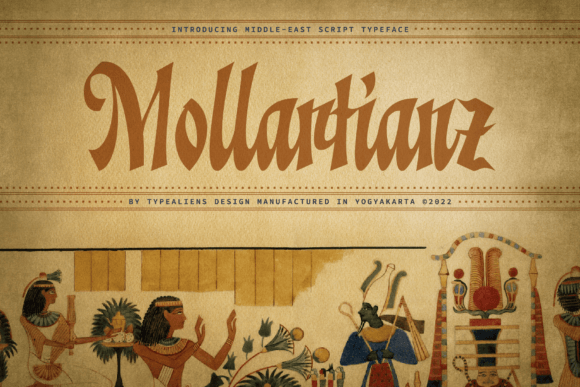
Mollartianz Font
Unleash the Timeless Charm of Mollartianz: A Vintage Font that Embraces the Essence of Nostalgia
In a world saturated with digital monotony, Mollartianz emerges as a beacon of nostalgia, a font that evokes the allure of bygone eras with its captivating vintage charm. Designed to capture the essence of classic aesthetics, this display font breathes new life into your creative projects, transforming them into extraordinary expressions of timeless beauty.
With its elegant curves and intricate details, Mollartianz transports you to a realm of vintage splendor, evoking memories of sepia-tinted photographs and the timeless appeal of classic typefaces. Its versatility extends beyond mere aesthetics, adapting seamlessly to a wide range of design projects, from heartfelt branding endeavors to captivating marketing campaigns.
Imagine your designs adorned with the refined elegance of Mollartianz, captivating audiences with its authentic vintage flair. Craft logos that exude an air of heritage, evoking a sense of nostalgia and trust. Create packaging designs that whisper tales of forgotten times, luring customers with their timeless allure. Unleash the power of Mollartianz in your social media posts, captivating followers with images and videos that evoke a sense of longing for days gone by.
Mollartianz is more than just a font; it's a gateway to a world of vintage charm, a catalyst for creative expression that transcends the boundaries of time. Embrace the captivating allure of Mollartianz, and let your designs speak volumes with a voice that whispers of nostalgia and timeless elegance.